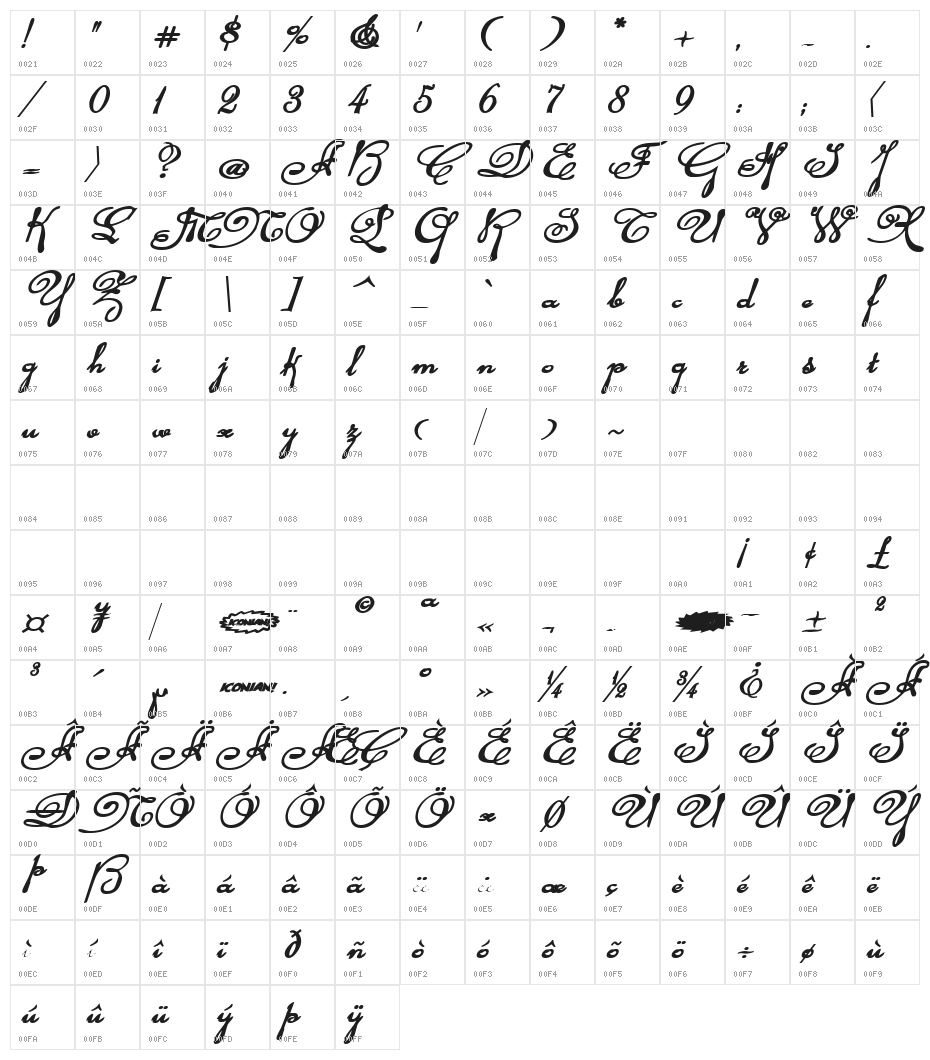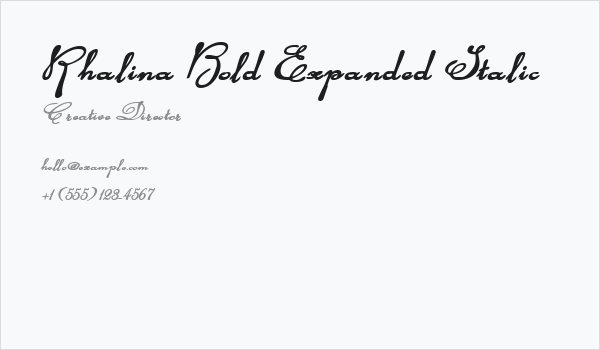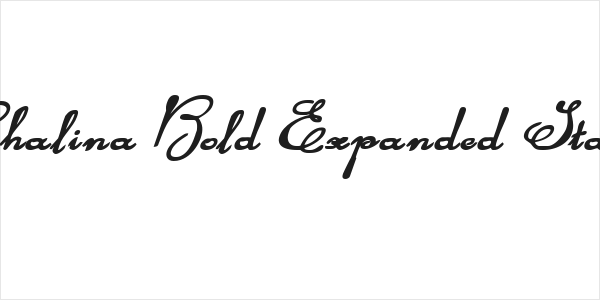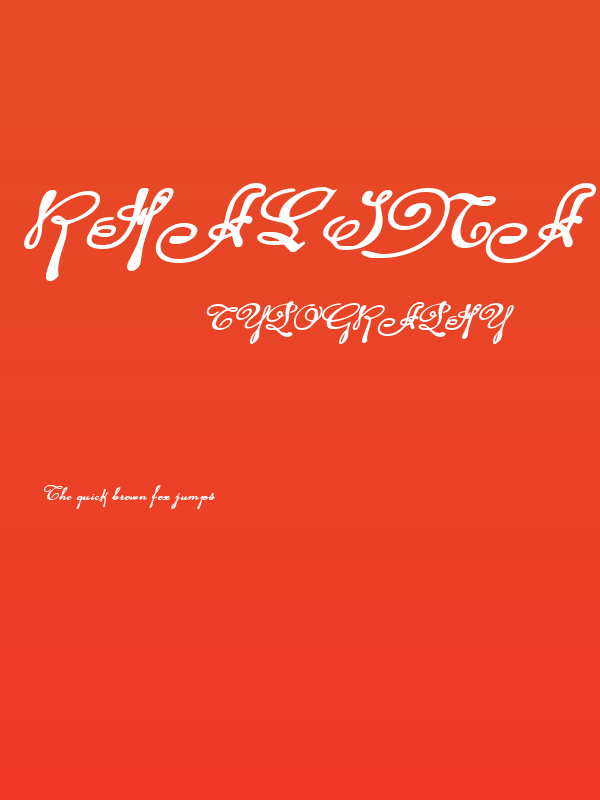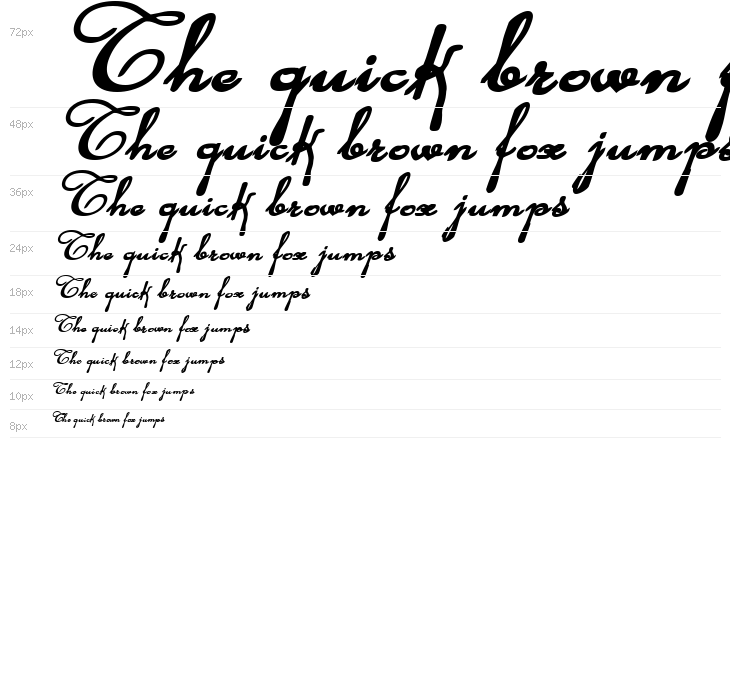
Rhalina Bold Expanded Italic Font
Rhalina Bold Expanded Italic Description
This font features a bold and expanded style with an italic slant, creating a dynamic and flowing appearance. The uppercase letters are elegantly curved, with distinctive loops and swashes that add a touch of sophistication. The lowercase letters maintain a consistent style, with smooth transitions and a slightly exaggerated flair. Numbers are clear and bold, matching the overall aesthetic. Special characters are well-integrated, maintaining the font's cohesive look. The font's design is both decorative and functional, making it suitable for various creative applications.
| Use Case | Logos, Invitations, Decorative Text |